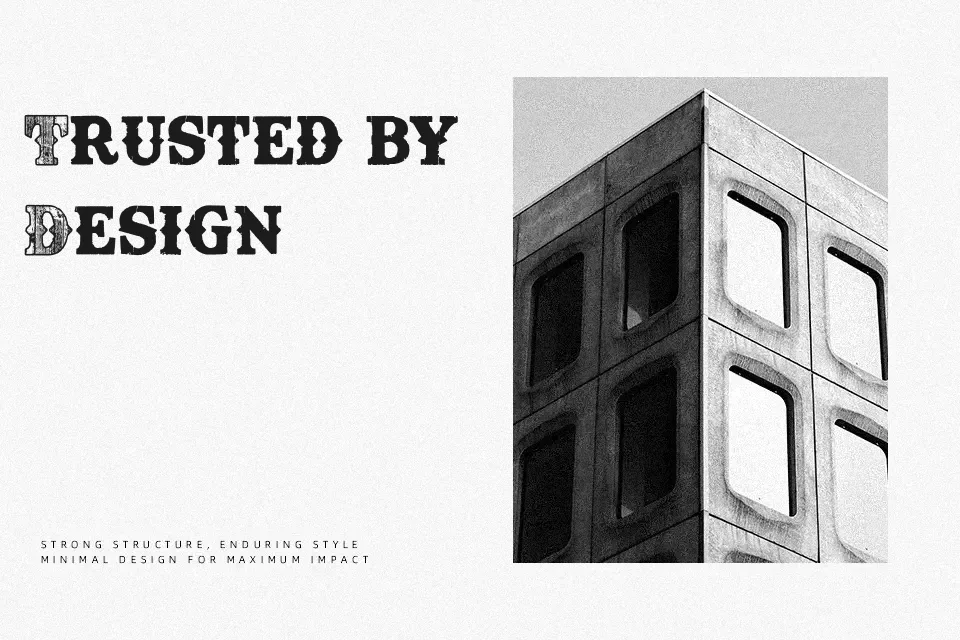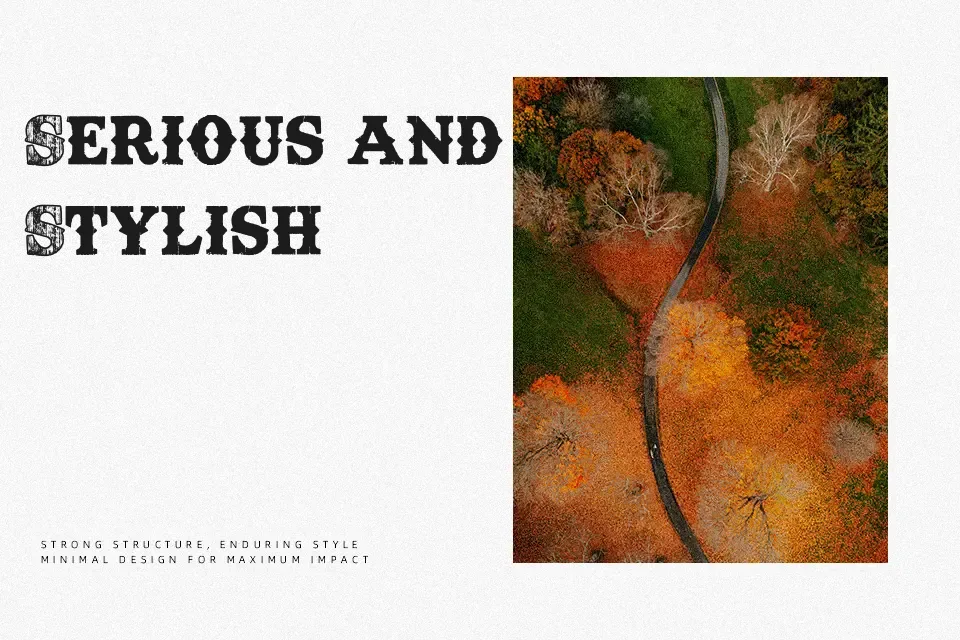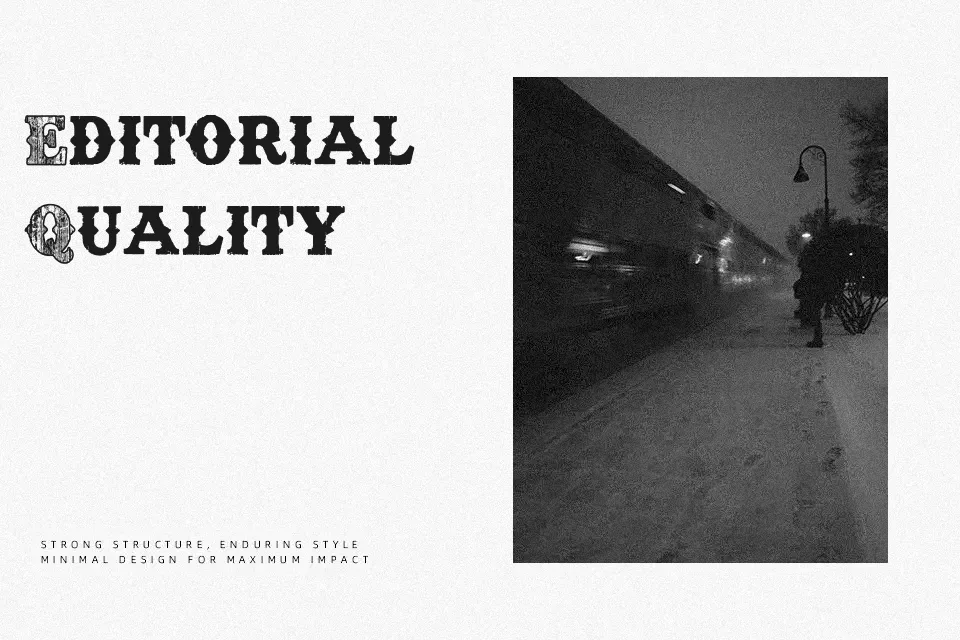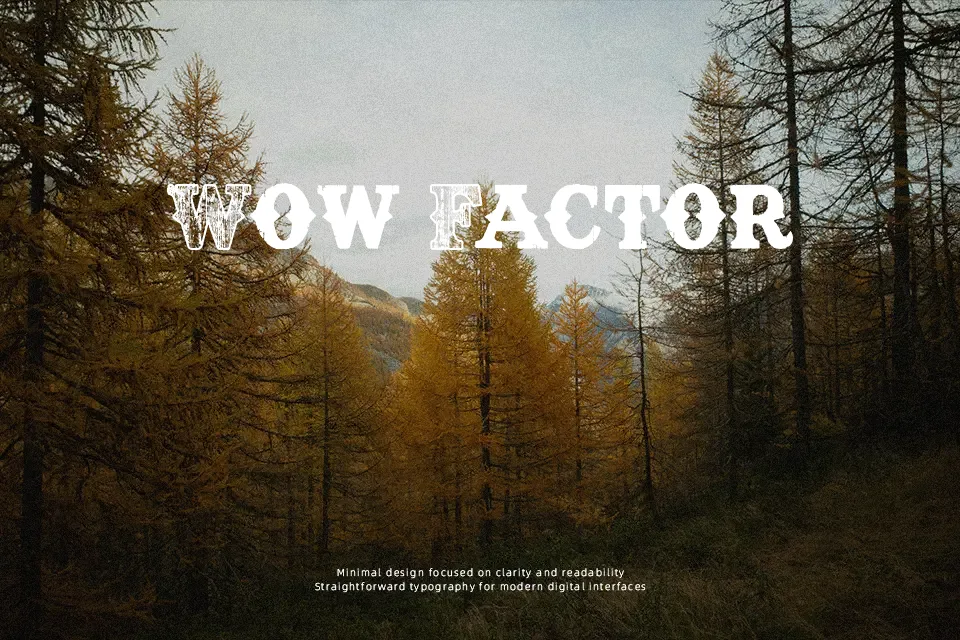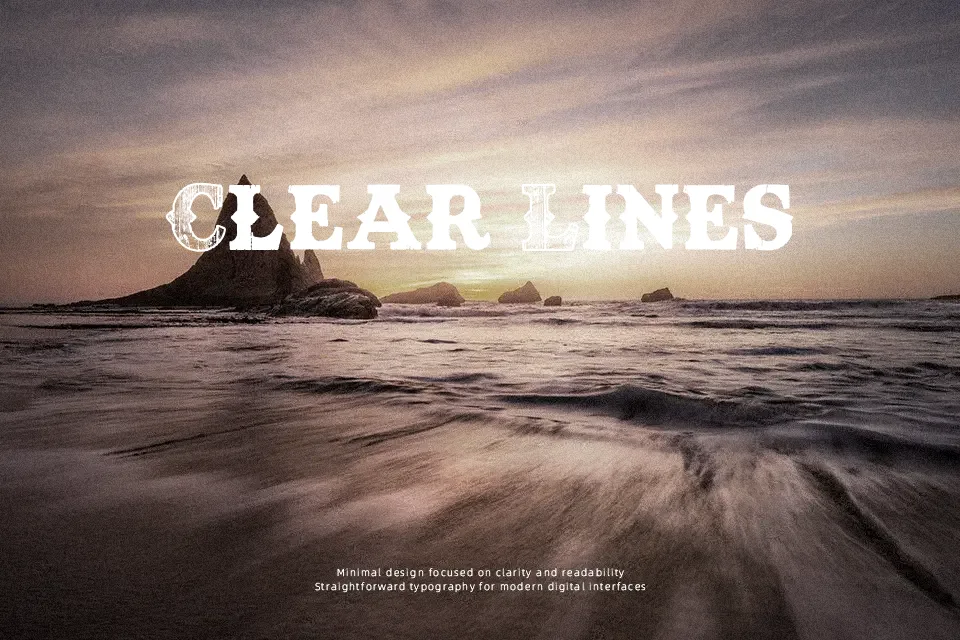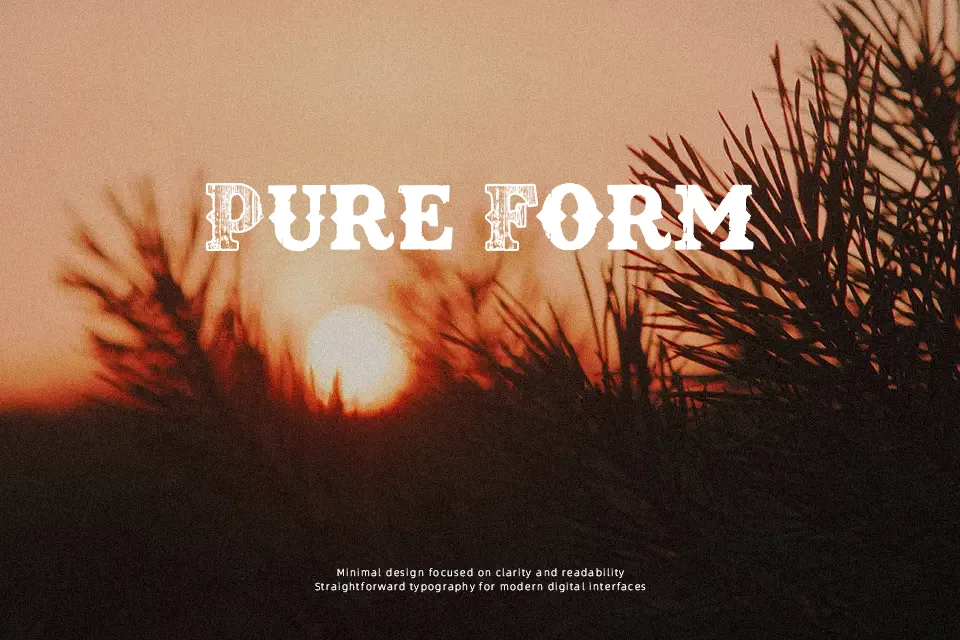
Texaswood Font
Texaswood Font establishes an imposing western presence through broad, slab-serif letterforms defined by sharp spurs protruding from the stems. Substantial stroke weight pairs with generous horizontal proportions, giving each capital character a grounded, architectural stability across large display formats. The spacing remains carefully metered to preserve distinctive contours, preventing adjacent glyphs from colliding even under dense titling conditions. While these bold geometries project exceptional clarity on apparel graphics and storefront signs, the heavy decorative spurs quickly clutter extended text. The typeface functions best when isolated in concise, high-impact titles where its rugged silhouettes command immediate visual attention.
Best For: rustic storefront signage, saloon-style event banners, craft spirits label titling, outdoor apparel graphics
Not Ideal For: continuous reading passages, mobile interface body text, dense catalog index tables, formal legal documents
Perfect for headline, logo, and packaging, with a bold and decorative style.